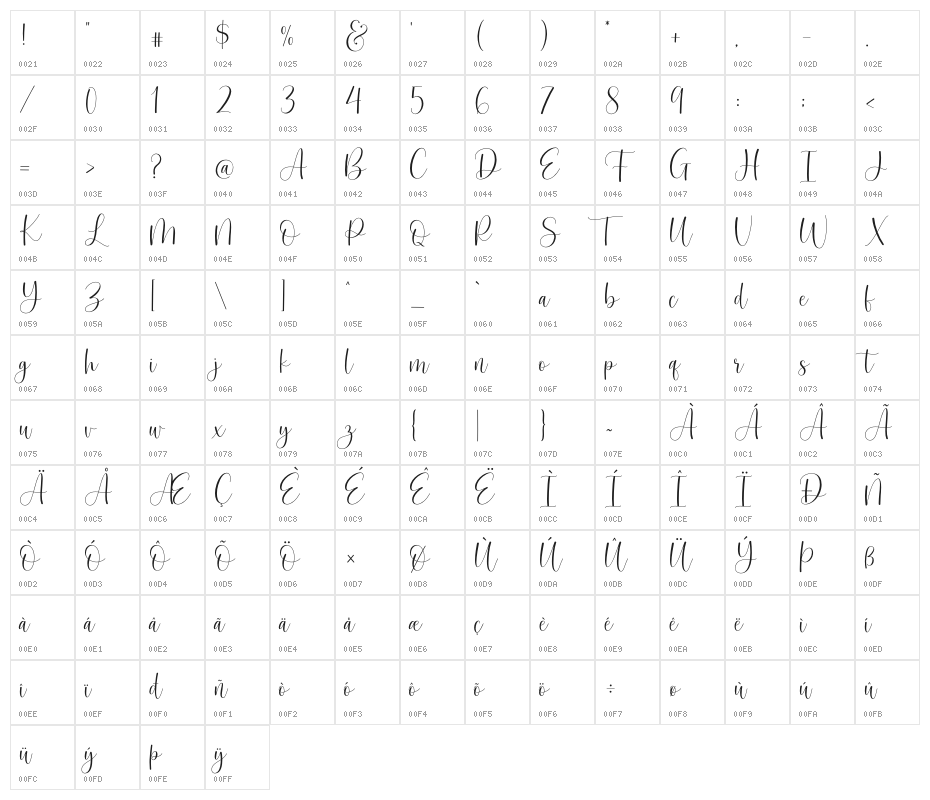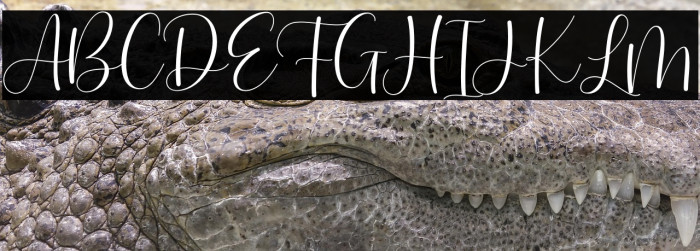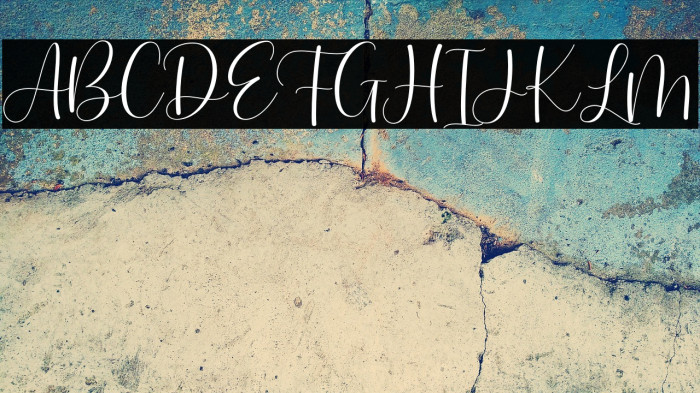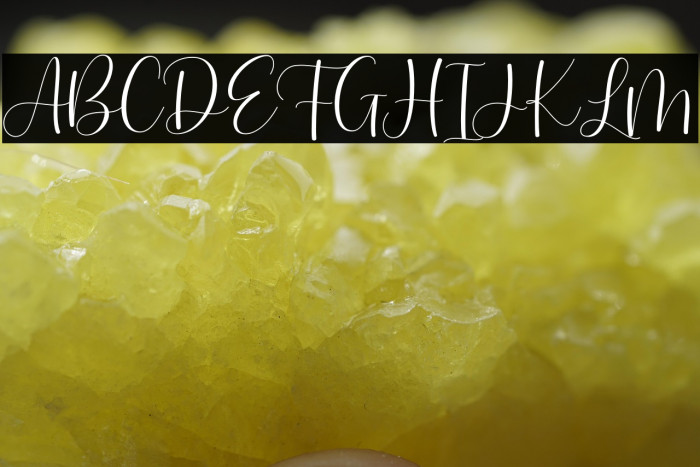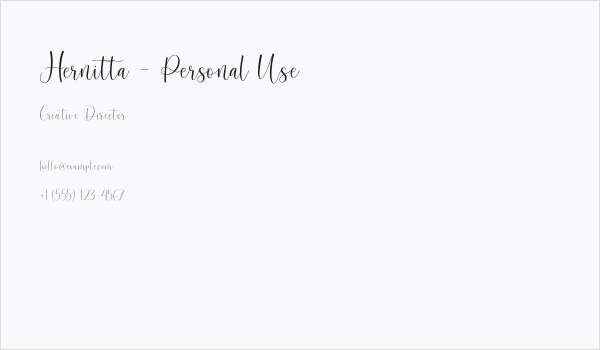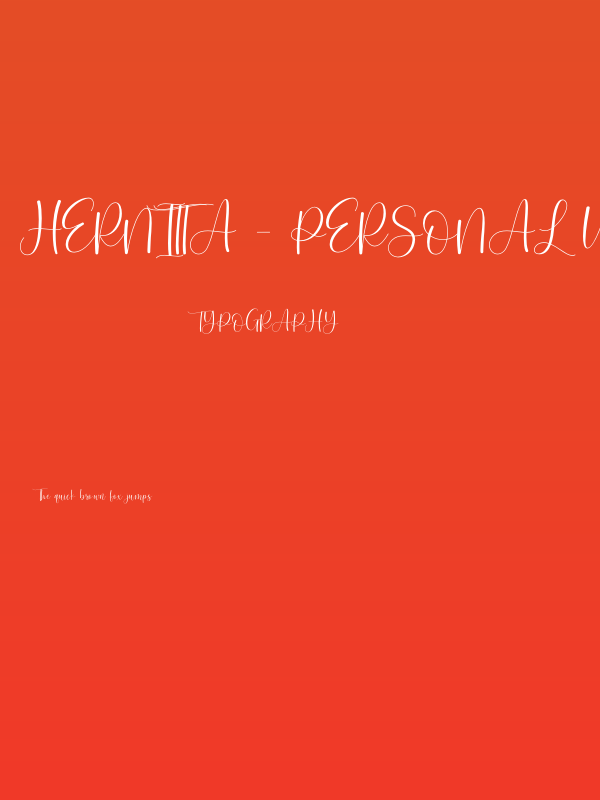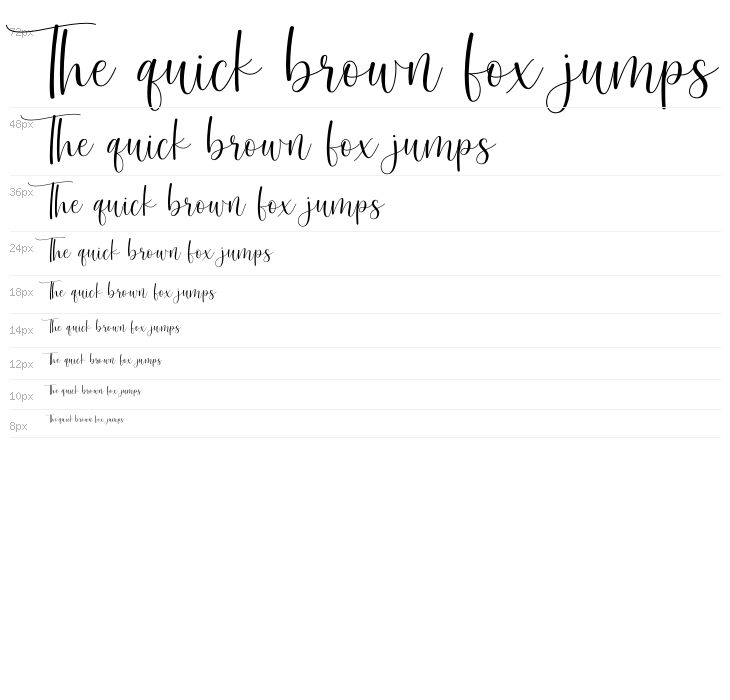
Hernitta - Personal Use Font
Hernitta - Personal Use Description
This elegant script font features a flowing, cursive style with delicate, sweeping curves and loops. The uppercase letters are characterized by their tall, slender forms and graceful flourishes, while the lowercase letters maintain a consistent rhythm with a slightly more compact appearance. The numerals are stylishly integrated, echoing the font's overall fluidity. Special characters are thoughtfully designed to complement the script's aesthetic, adding a touch of sophistication. The font's thin strokes and high contrast give it a refined, airy feel, making it suitable for projects that require a touch of elegance and charm.